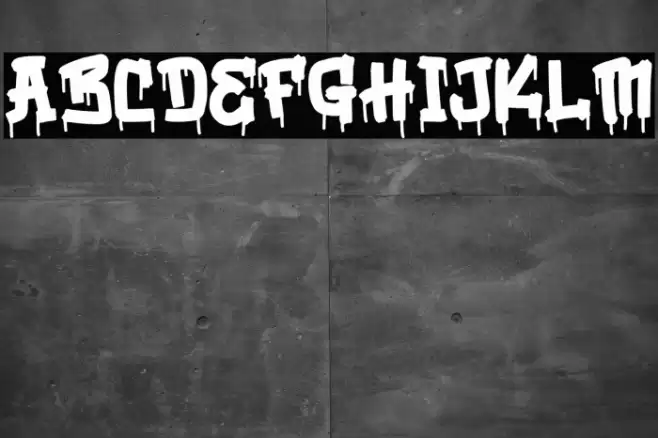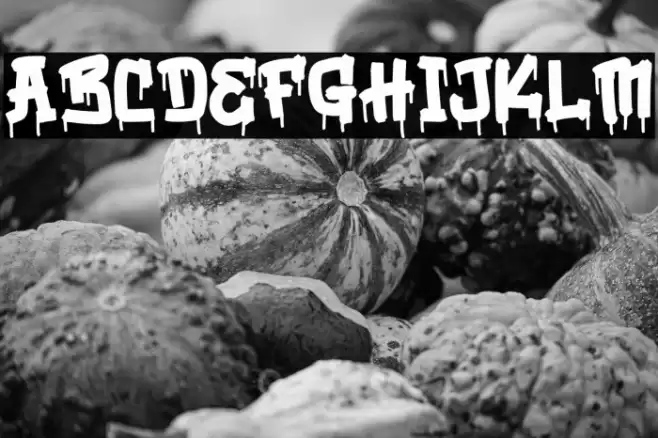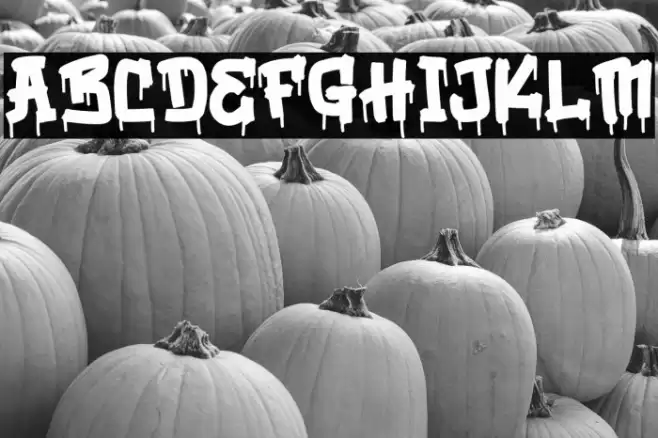
Russelot Personal Use Font
This font features a bold and edgy design with a dripping effect that gives it a graffiti-like appearance. The characters are thick and robust, with a unique style that mimics paint dripping down a wall. This adds a dynamic and rebellious feel to the text, making it stand out with a strong visual impact. The uppercase and lowercase letters maintain a consistent style, ensuring uniformity across different text elements. The numbers and special characters are designed to match the overall aesthetic, providing a cohesive look. This font is perfect for projects that require a bold statement or an urban, street-art vibe.
A bold, graffiti-inspired font with a dripping effect for a dynamic, urban look from Graffiti fonts.
- Font: Russelot Personal Use
- Proposed Projects: Ideal for street art designs, music album covers, event posters, and urban-themed branding.
- Overall Style: Urban, Graffiti, Bold